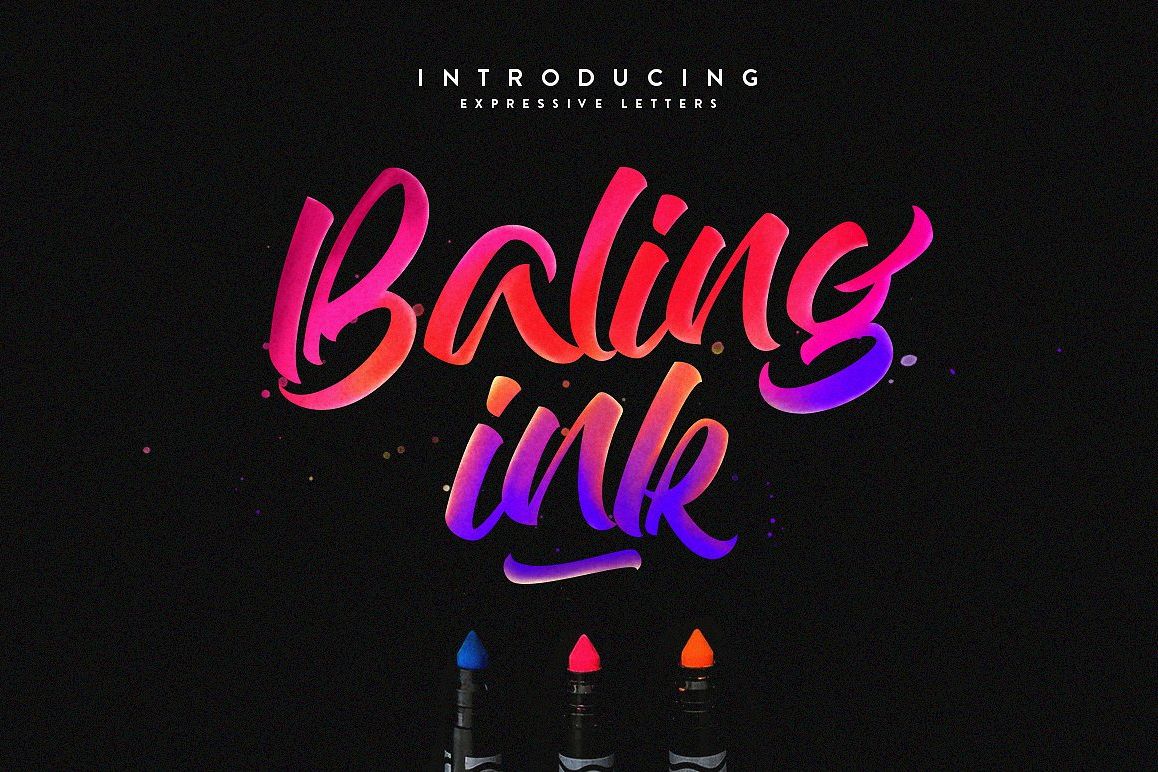
Baling Ink
Baling Ink type is expressive brush dan hand drawn typeface designed to help you create the look of stunning custom hand-lettering.Baling Ink The typeface offers numerous combination possibilities between the basic glyph set and stylistic sets.The stylistic sets are alternate alphabets that you can access by using OpenType savvy programs such as Adobe, Do not use any third party software that not support the OTF (Open Type Format) featureWhat's Inside :
• swash ( Ai/ Eps )Baling Ink is an experimental and versatile font. Suitable for digital lettering, prints, logo, poster, t-shirt, graffiti, packaging and applicable for some type of graphic design.